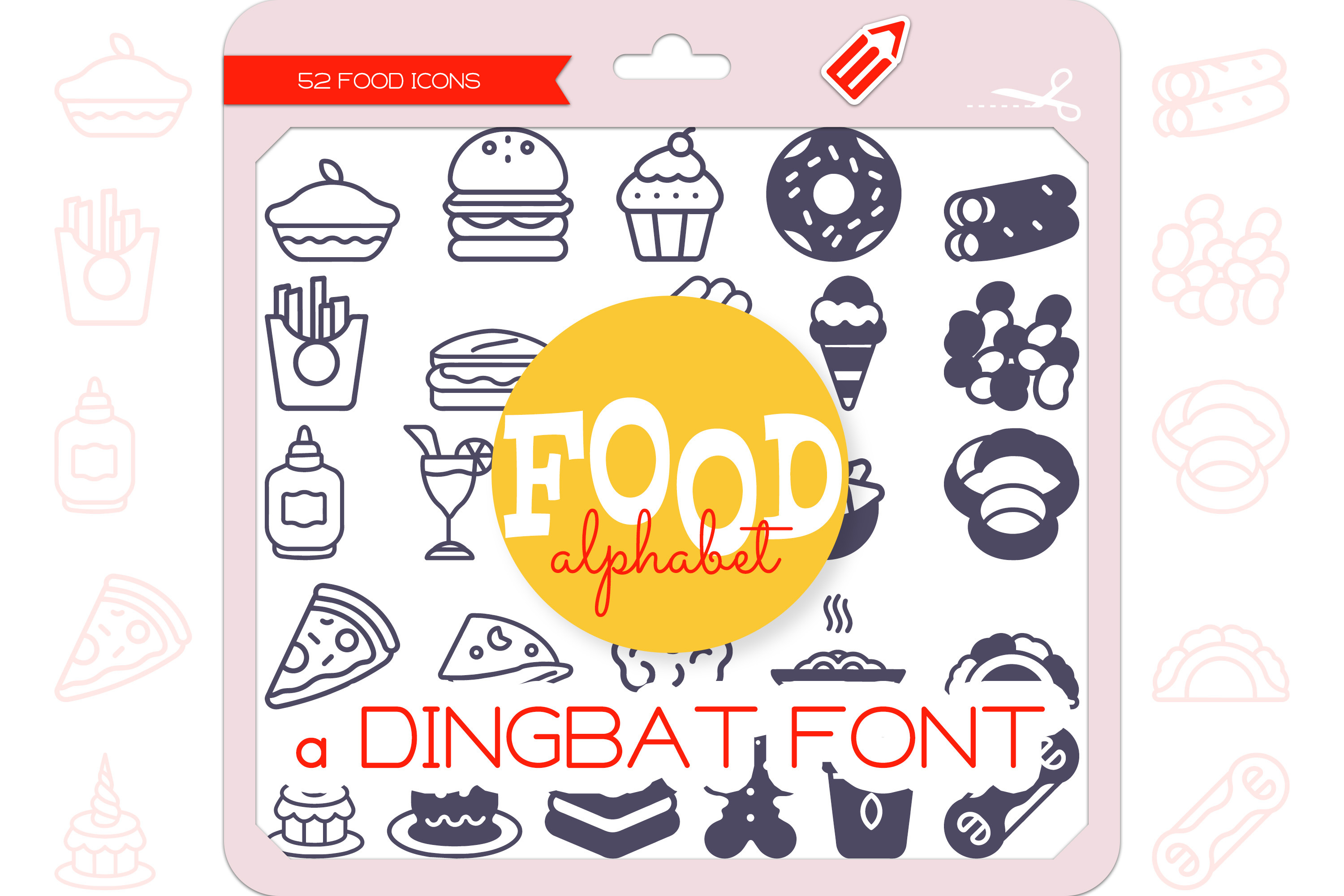
Food Alphabet - Dingbat Font
Food Alphabet is a unique and cute dingbat font, each Food icon representing each letter of the alphabet from A to Z. It contains 52 icons in 2 styles (Outline & Filled-Outline). Add this font to your creative ideas and make your arts outstanding!
The Food Alphabet Icons Dingbat Font featuring 26 A-Z things Apple Pie, Burger, Cupcake, Donut, Egg Rolls, French Fries, Grilled Cheese, Hot Dog, Ice Cream, Jelly Beans, Ketchup, Lemonade, Macaroni And Cheese, Nachos, Onion Rings, Pizza, Quesadilla, Rice Crispy Treats, Spaghetti, Tacos, Unicorn Cake, Vanilla Pudding, Waffles, Xmas Cookies, Yogurt, Ziti